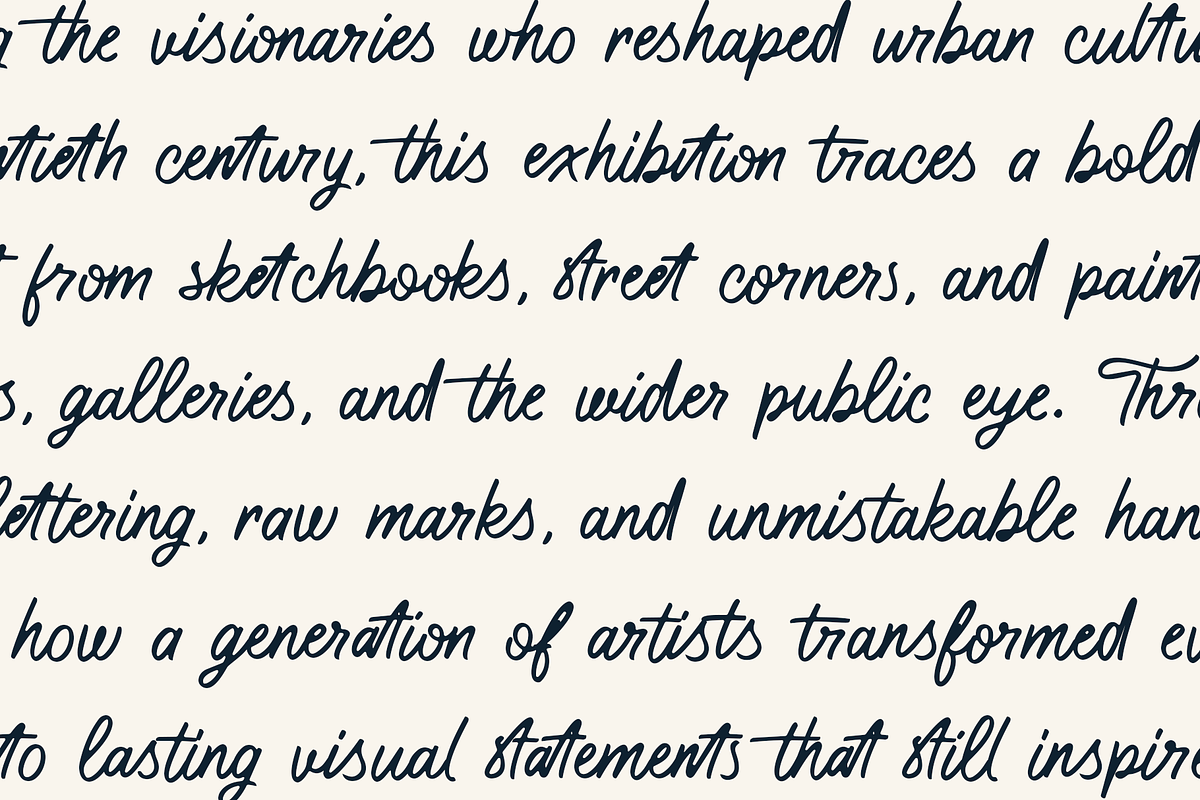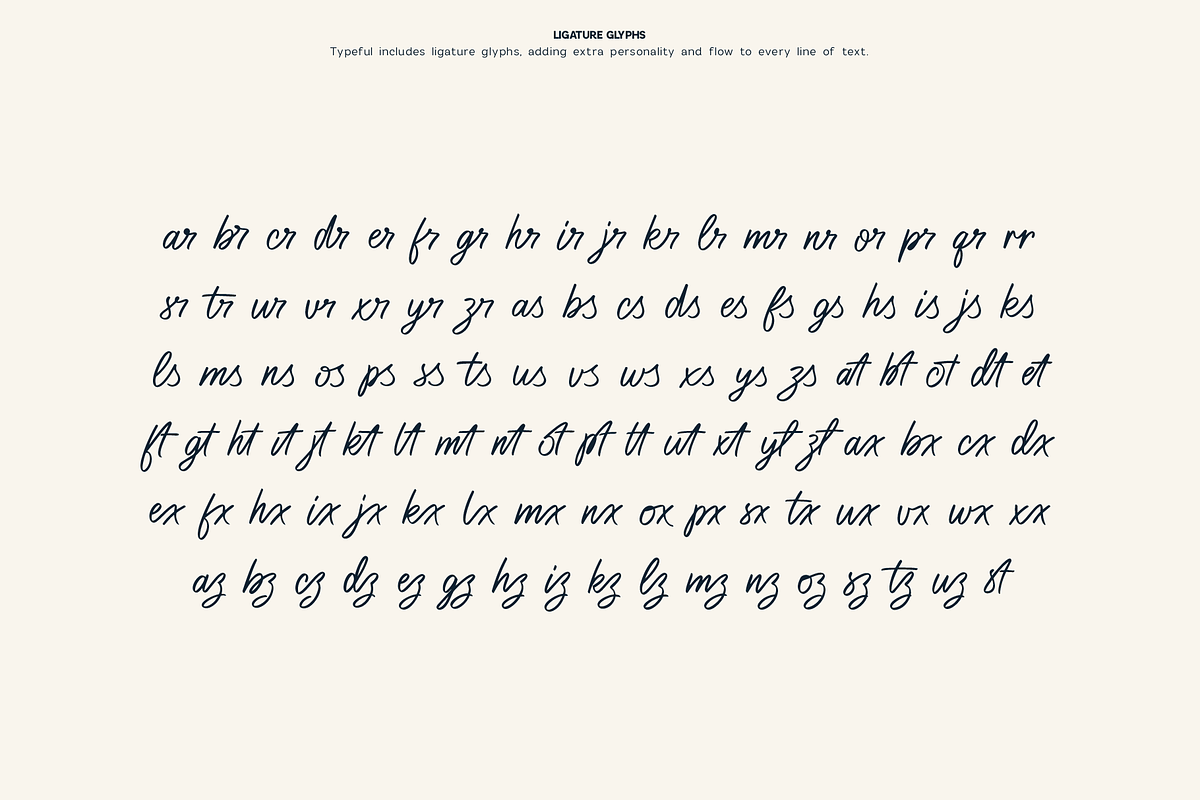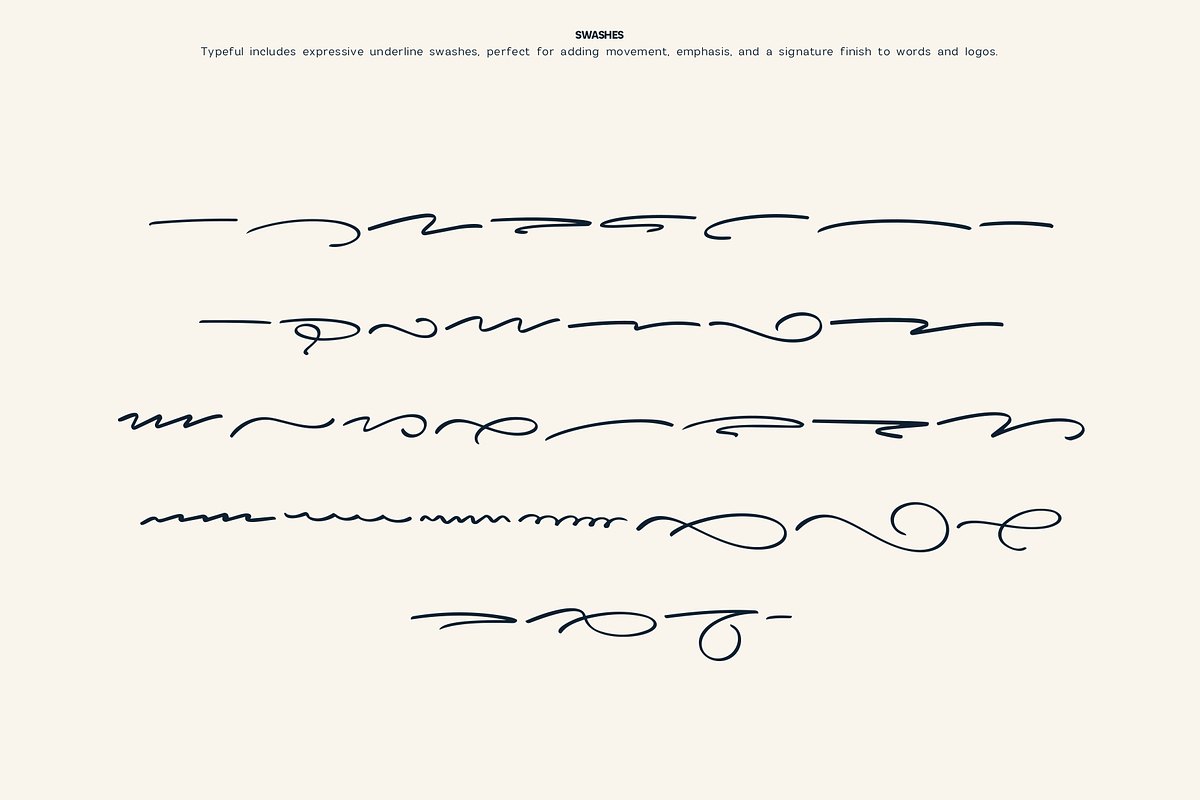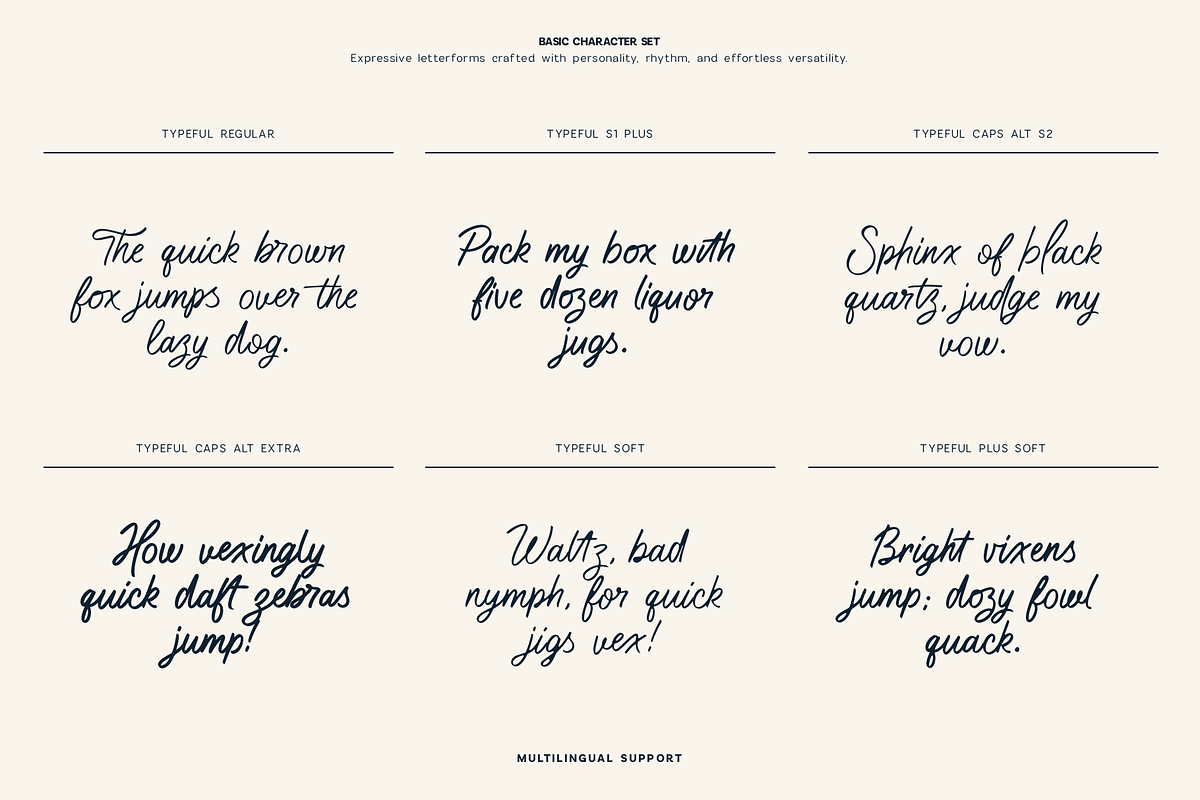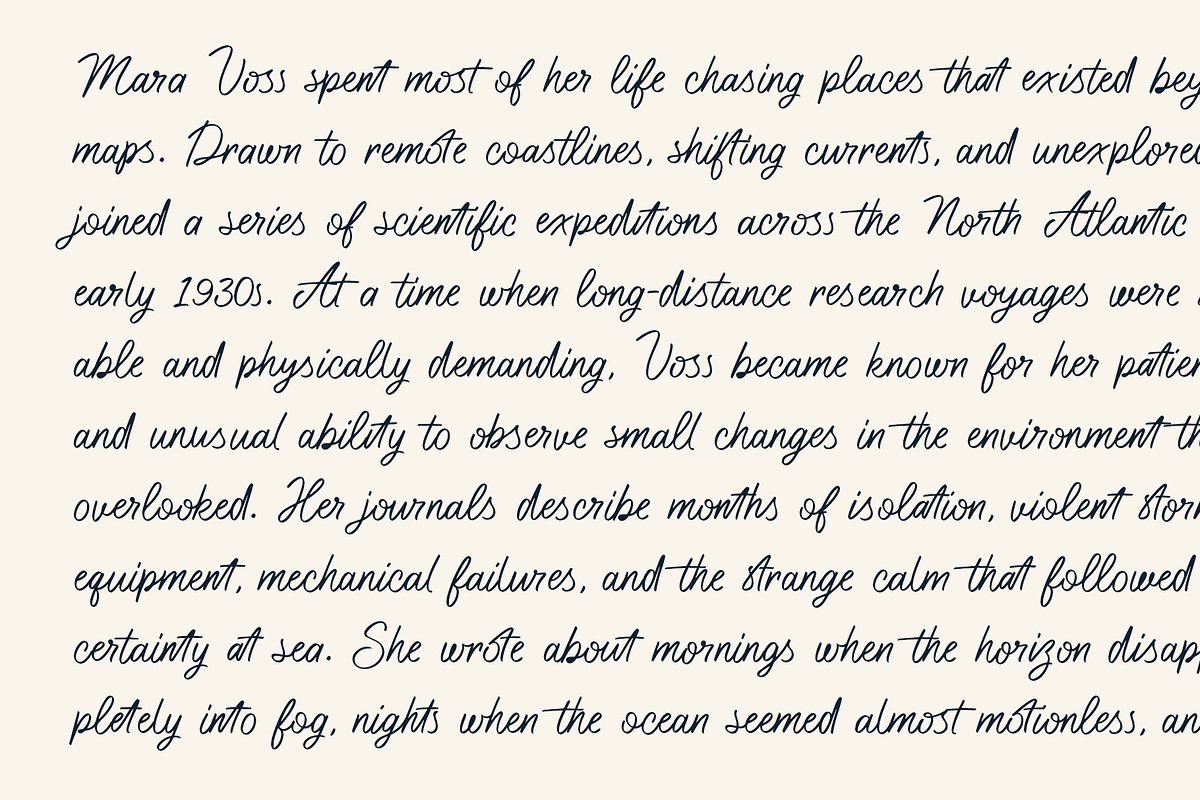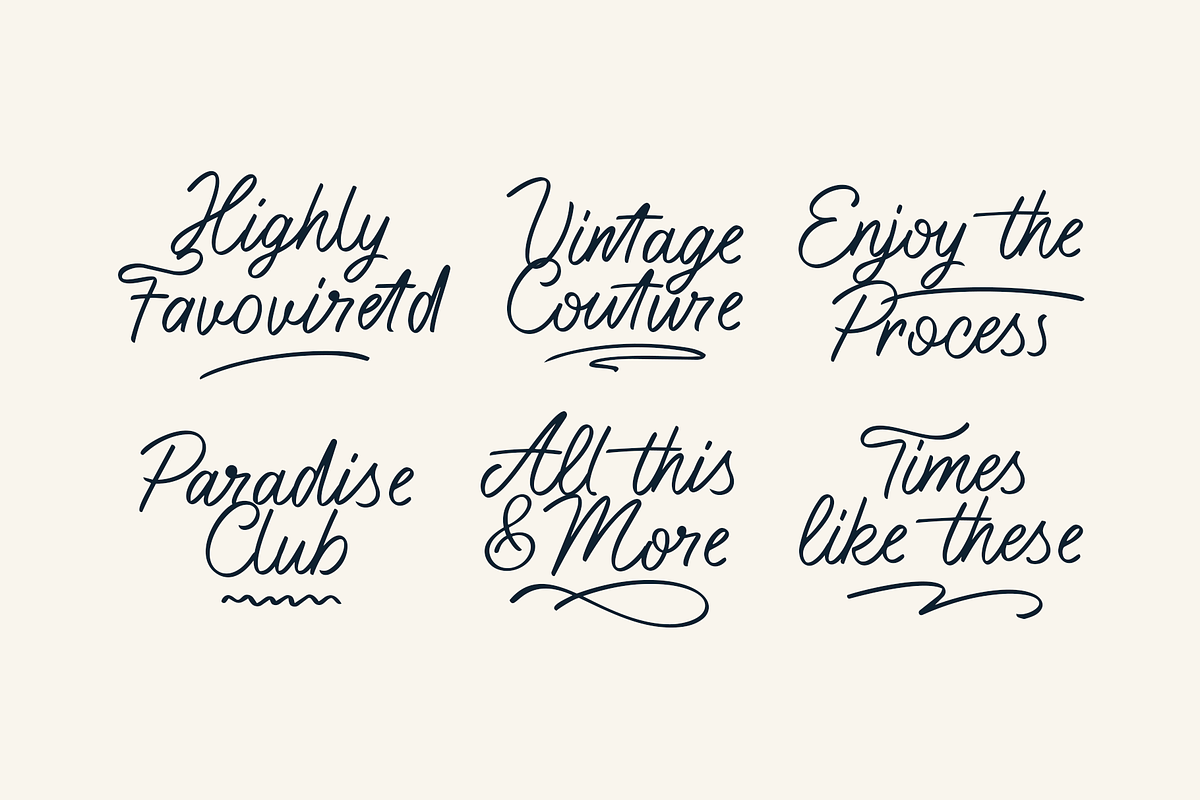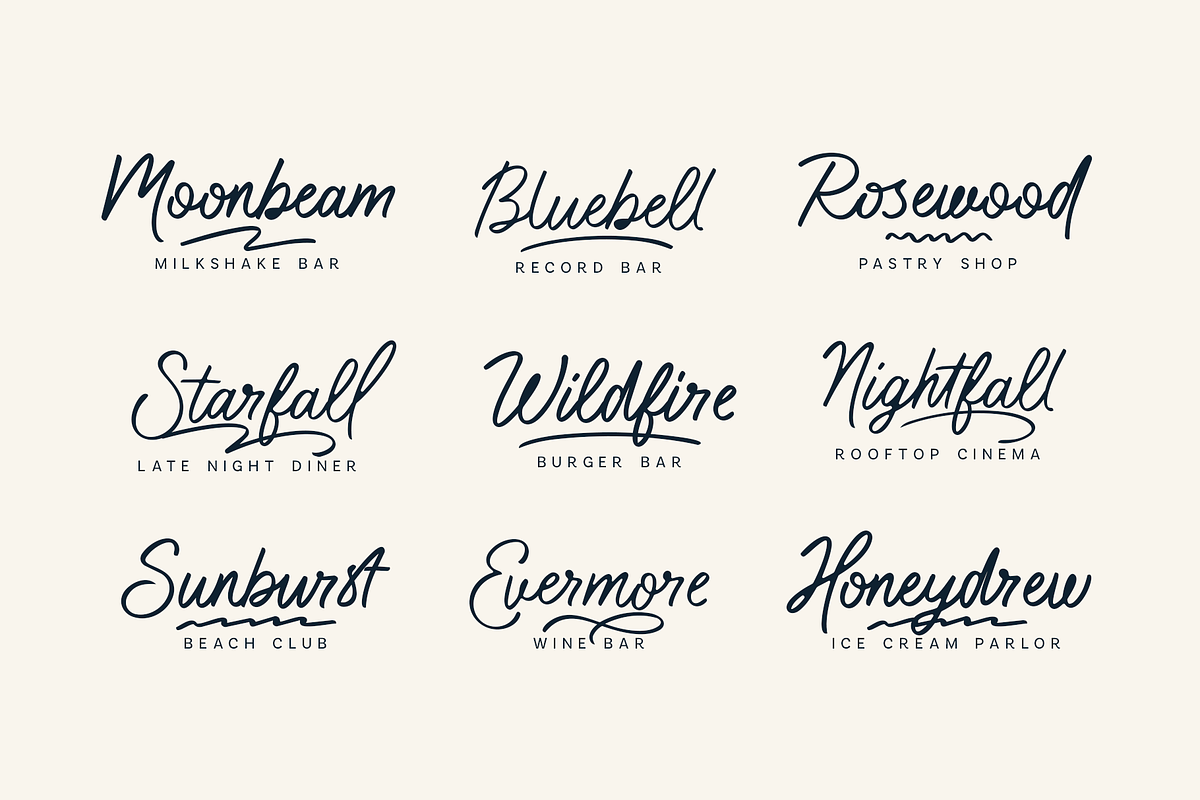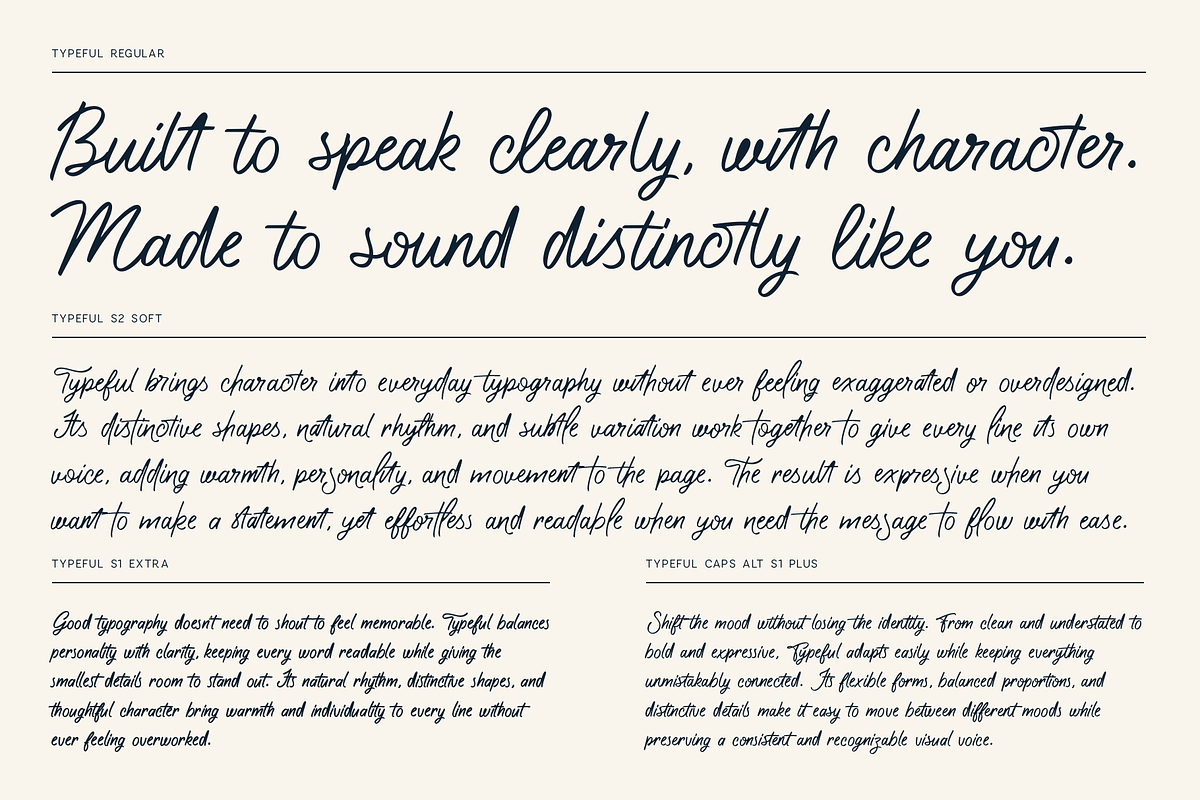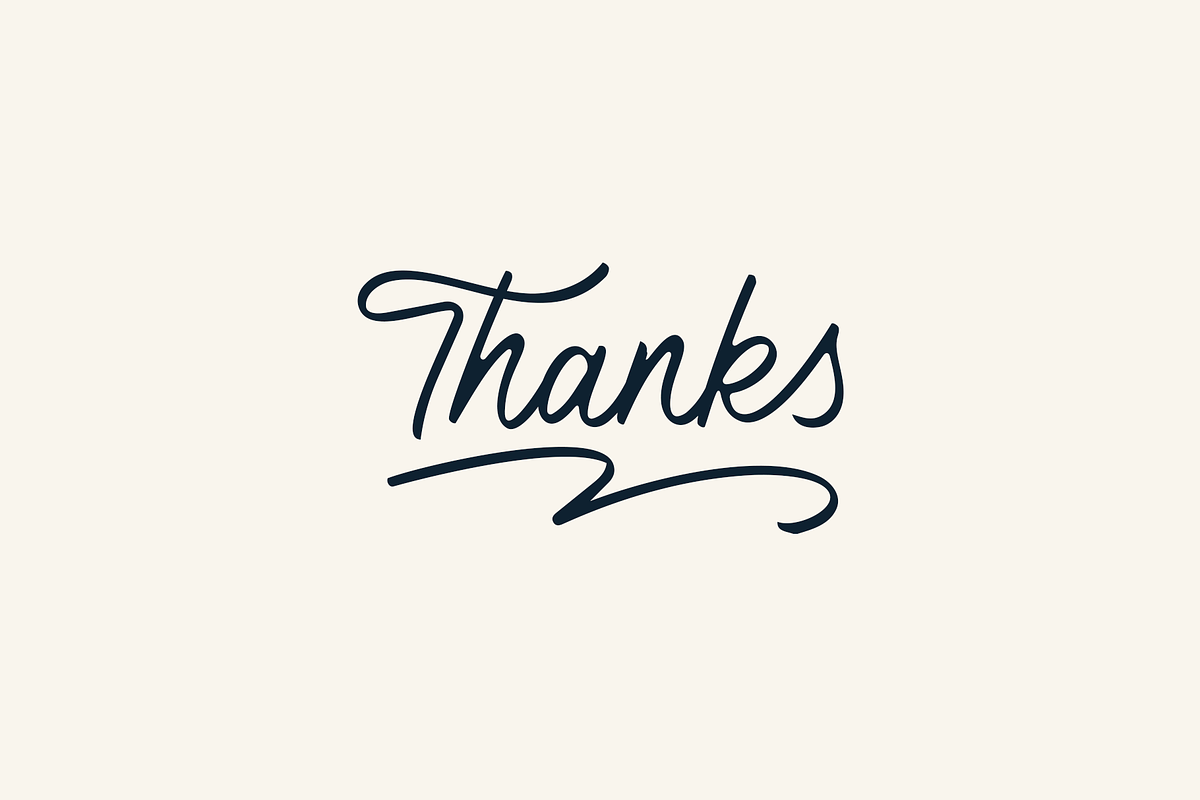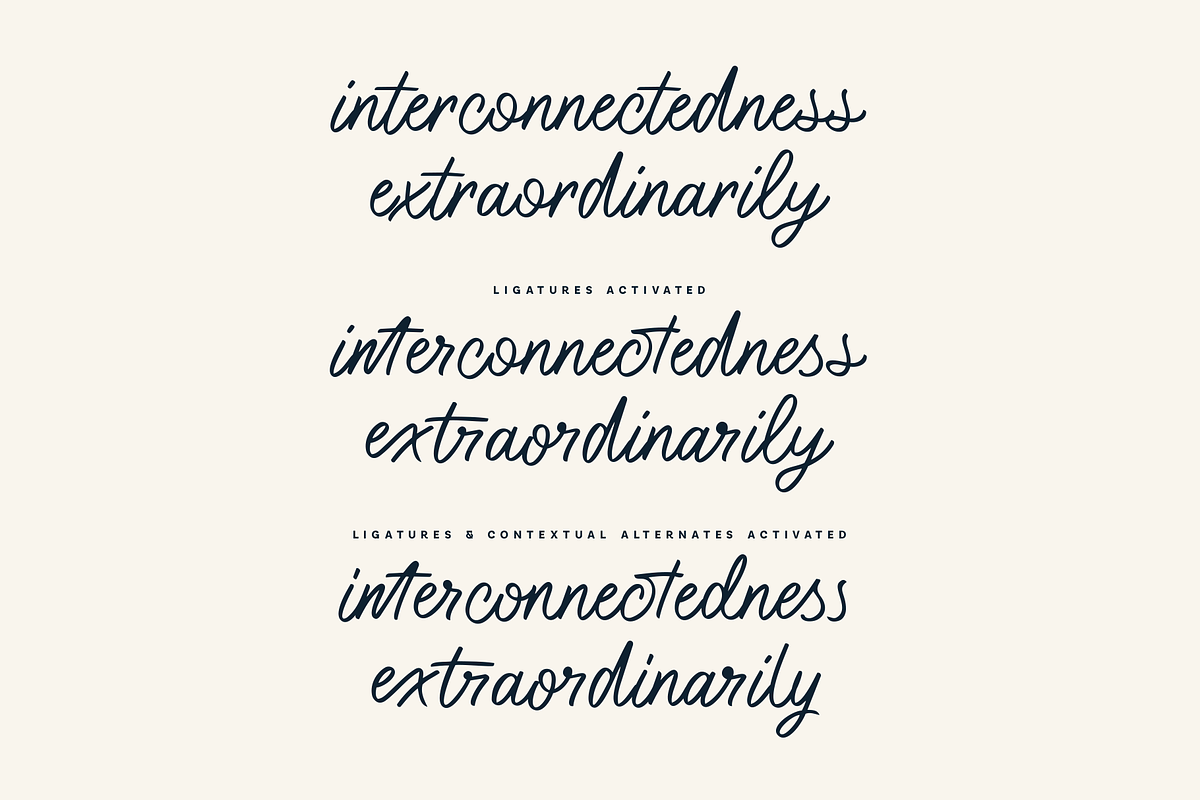
Typeful - Handwritten Script Font
Meet Typeful, an expressive handwritten script font designed to bring natural movement, personality, and effortless charm to your typography.
Typeful combines fluid handwritten letterforms with an extensive collection of ligatures, contextual alternates, stylistic variations, swashes, and alternate capitals, giving you plenty of ways to create lettering that feels custom and naturally written rather than repetitive.
With 36 font variations plus a dedicated Swashes font, Typeful can shift from clean and understated to decorative and expressive while keeping the same recognizable handwriting style. Mix Regular, Soft, Plus, Extra, S1, S2, and Caps Alt variations to create headlines, logos, quotes, packaging, invitations, editorial layouts, social media graphics, and branding with a distinctive hand-lettered look.
The large ligature collection helps repeated letter combinations flow more naturally, while contextual alternates add subtle variation throughout your text. Decorative swashes make it easy to finish logos, names, headlines, and short phrases with an elegant handcrafted touch.
Typeful also includes extensive multilingual Latin language support, making it a versatile choice for international branding and creative projects.
Typeful is made for designers who want the warmth of real handwriting with the flexibility of a feature-rich professional script typeface.